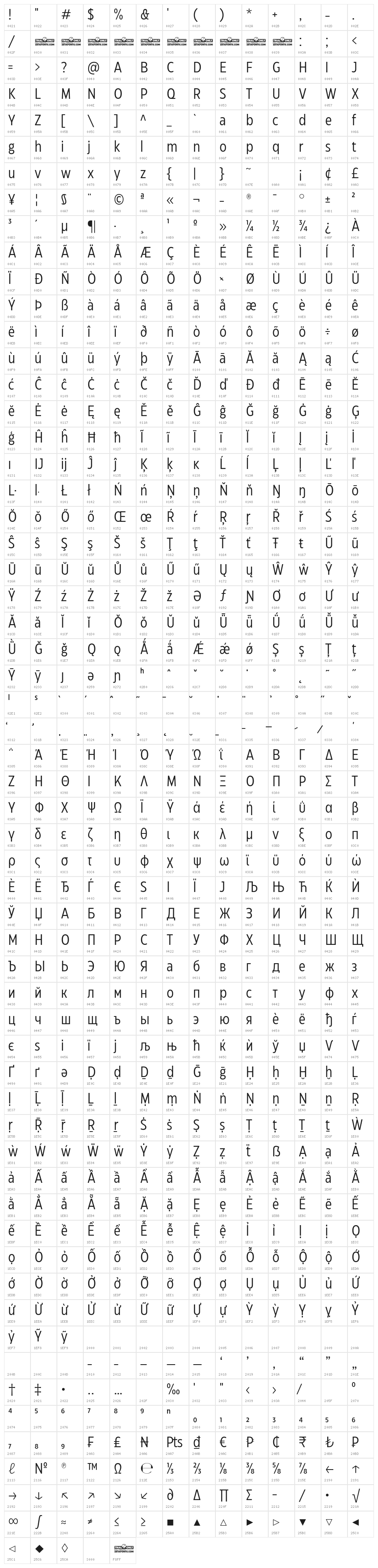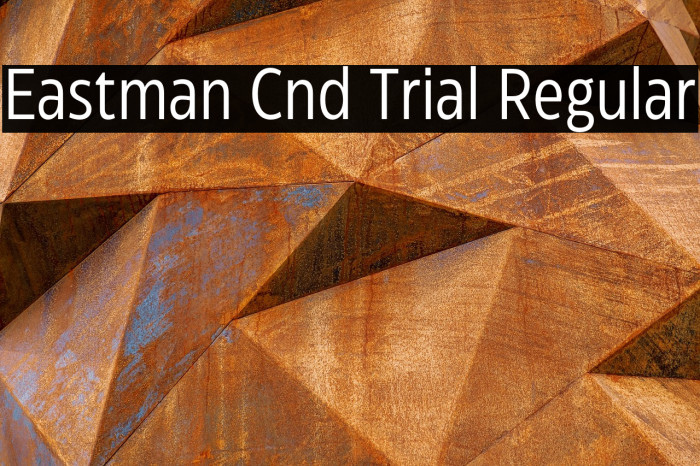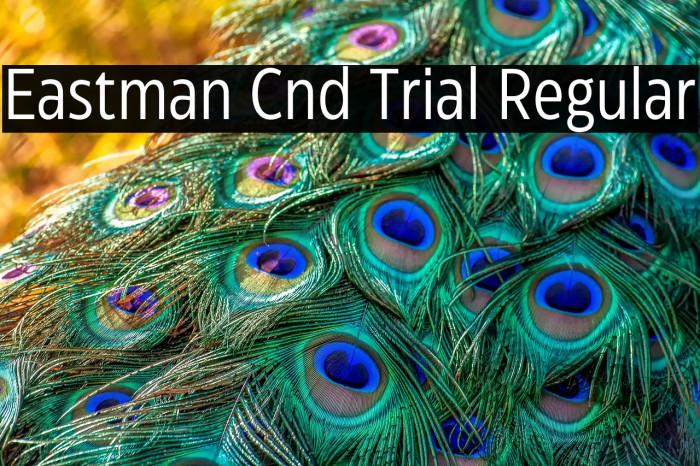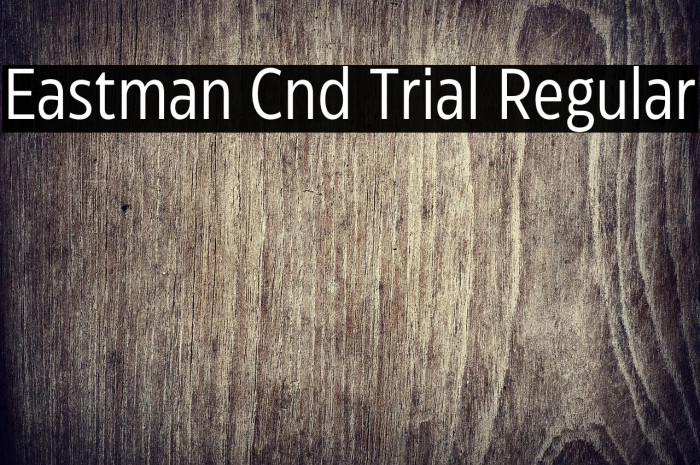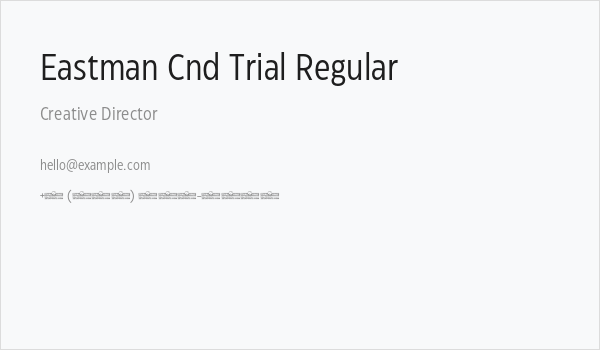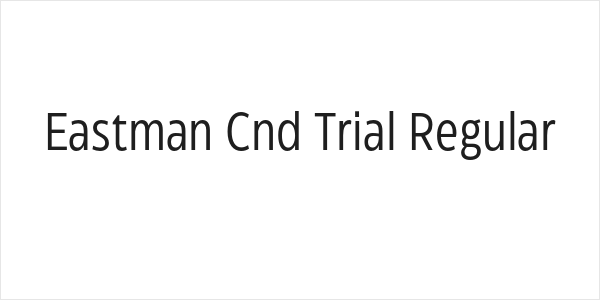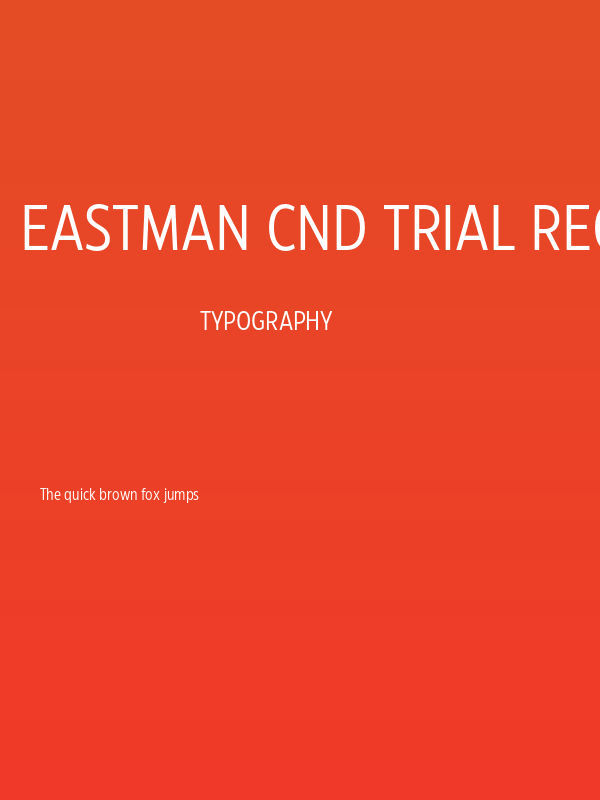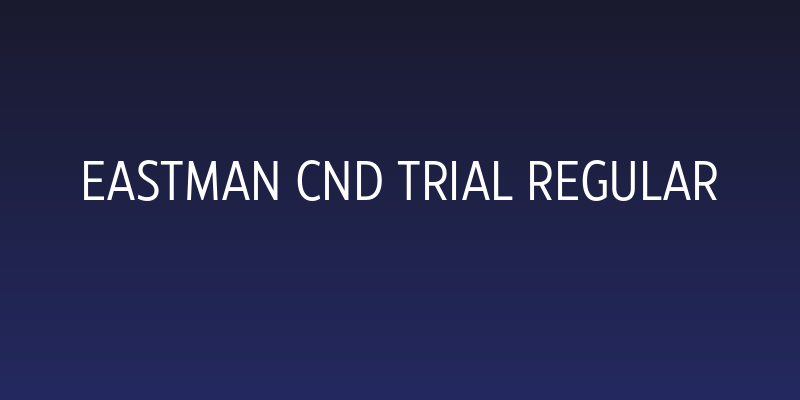
Eastman Cnd Trial Regular Font
Eastman Cnd Trial Regular Description
This font features a clean and modern sans-serif style with a condensed width, making it suitable for space-saving applications. The characters are uniform in stroke width, providing a balanced and harmonious appearance. The uppercase and lowercase letters are well-proportioned, with a slight geometric influence that enhances readability. The numerals and special characters are consistent with the overall design, ensuring versatility across various uses. Its simplicity and clarity make it ideal for both digital and print media.
| Proposed Projects | Ideal for branding, editorial design, web interfaces, and signage where space is limited. |